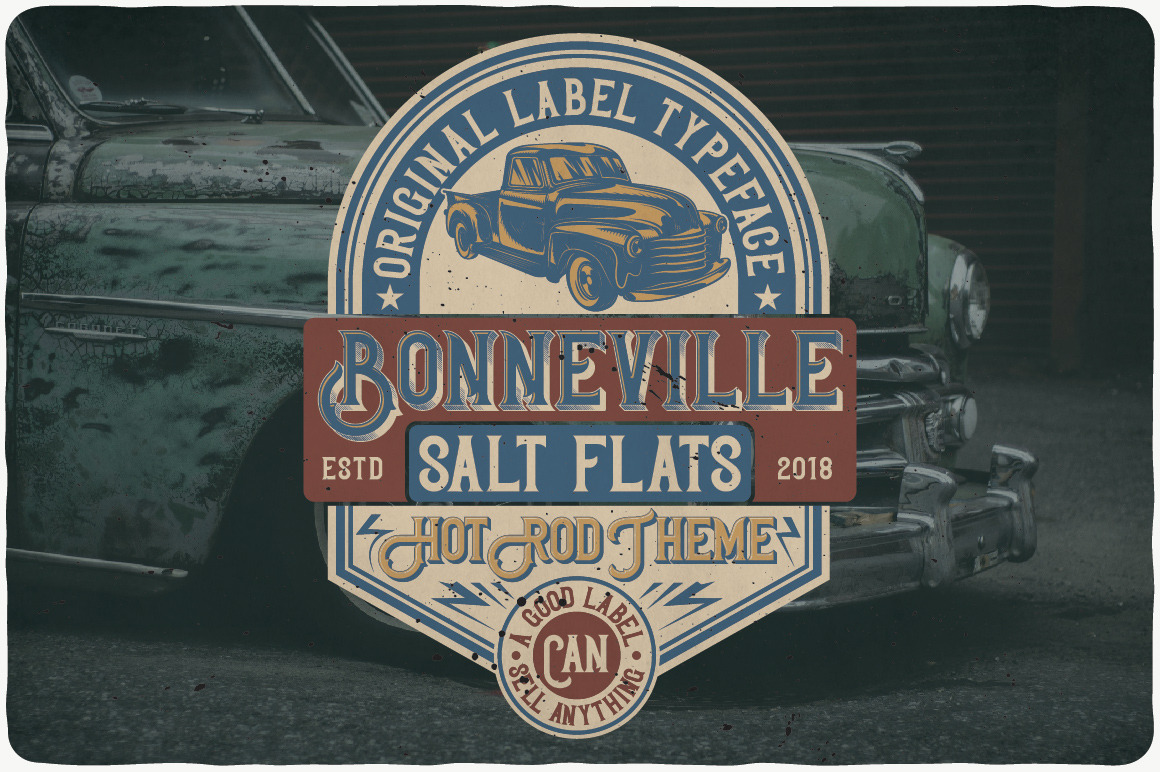
Bonneville Typeface
Introducing a vintage look layered label typeface named "Bonneville". This typeface includes several effect layers, for sample look at 4th preview. Typeface will good viewed on any yours design.